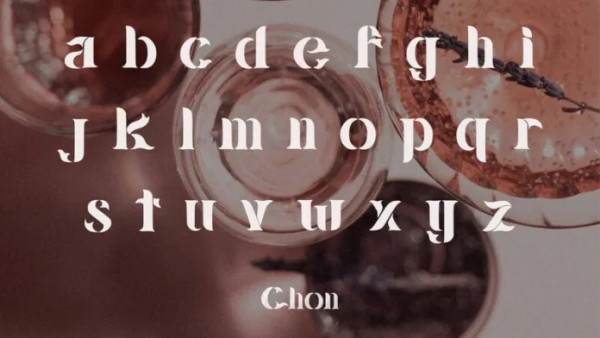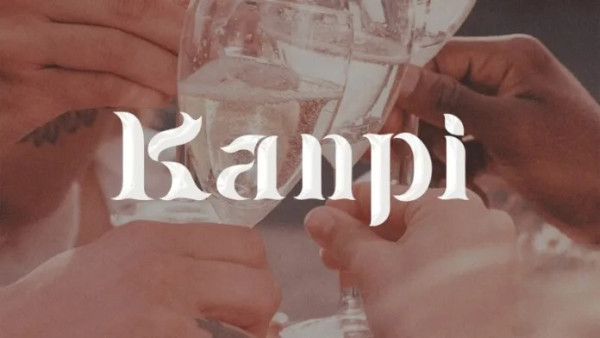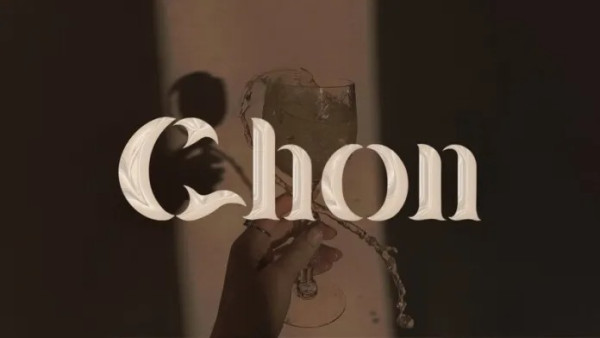
Chon Display Font
Chon Display Font is a highly detailed and distinct display font. it is based on the compact solid font, by combining a variety of styles. Suitable for Music, Band, Logo, greeting cards, quotes, posters, branding, name card, stationary, design title, blog header, art quote, typography, etc.